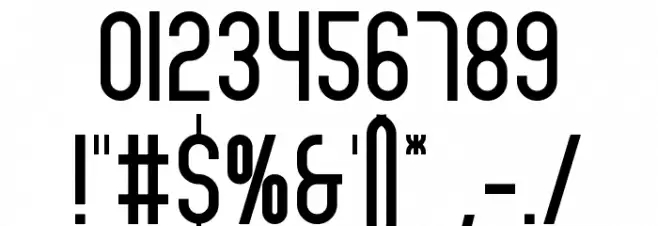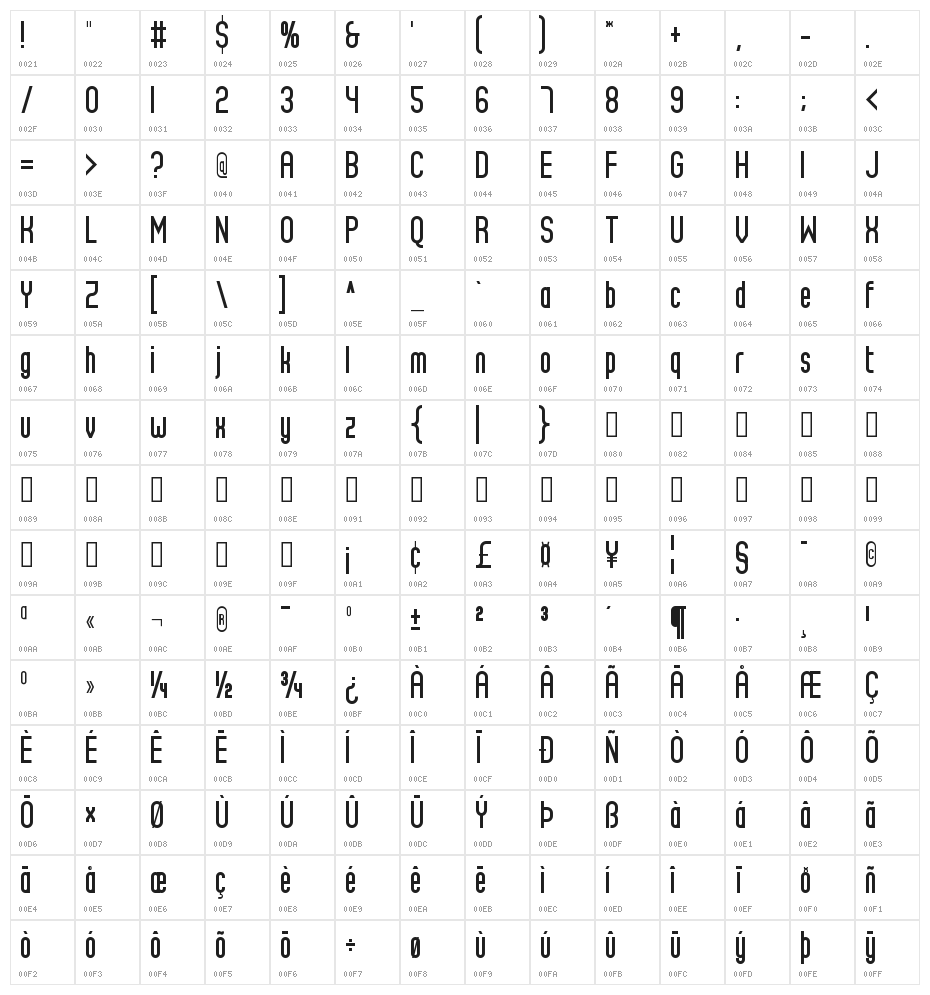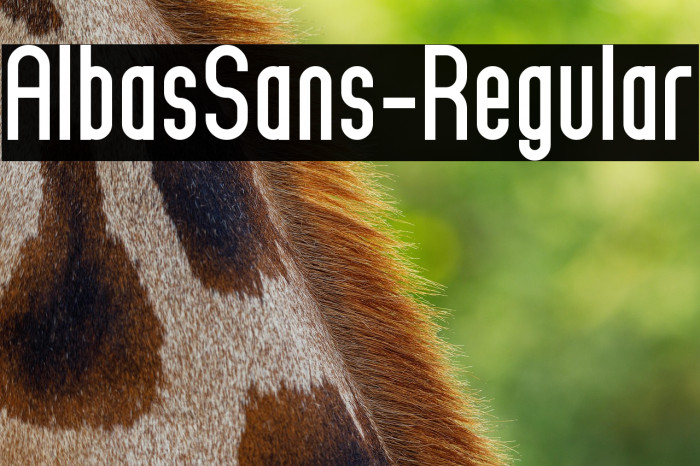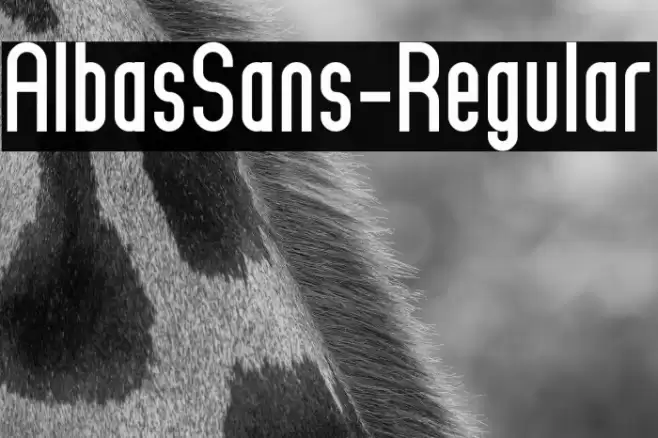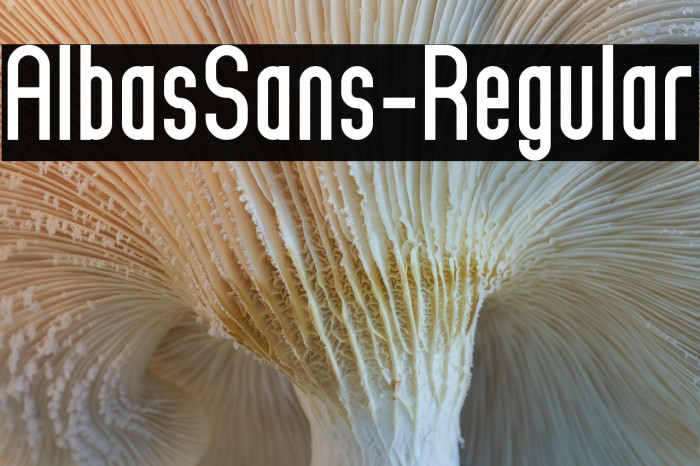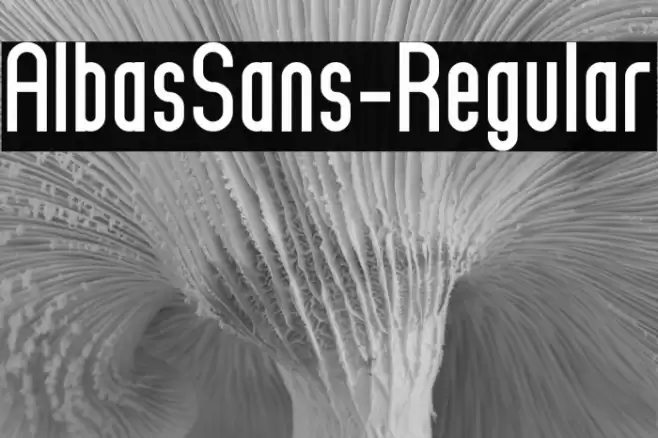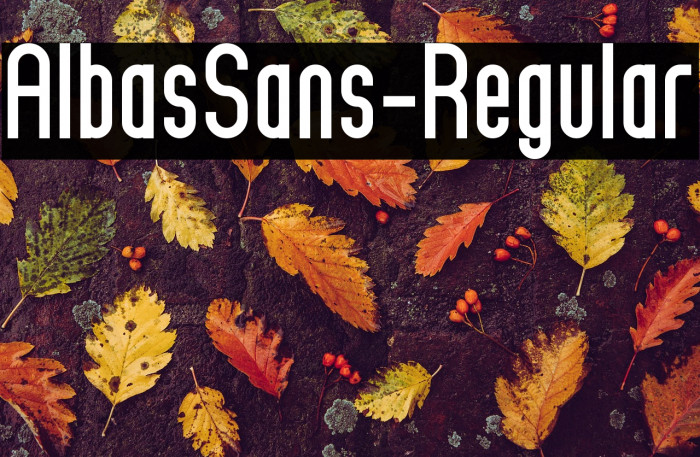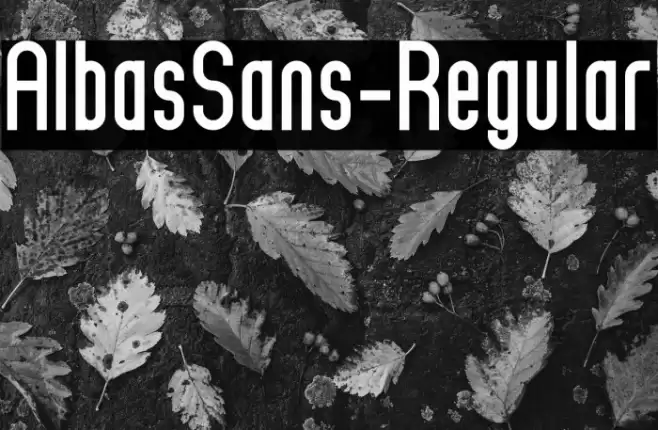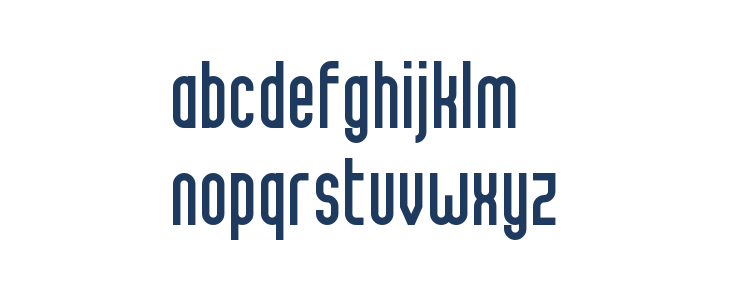
AlbasSans-Regular Font
AlbasSans-Regular Description
This font exhibits a modern and clean design with a sans-serif style. The characters are tall and narrow, featuring a consistent stroke width that provides a uniform appearance. The uppercase letters are bold and prominent, while the lowercase letters maintain a similar height, contributing to a cohesive look. The numerals are distinct and easily readable, matching the overall aesthetic of the alphabet. Special characters are well-integrated, maintaining the font's sleek and contemporary feel. The font's design is suitable for various digital and print applications, offering versatility and clarity.